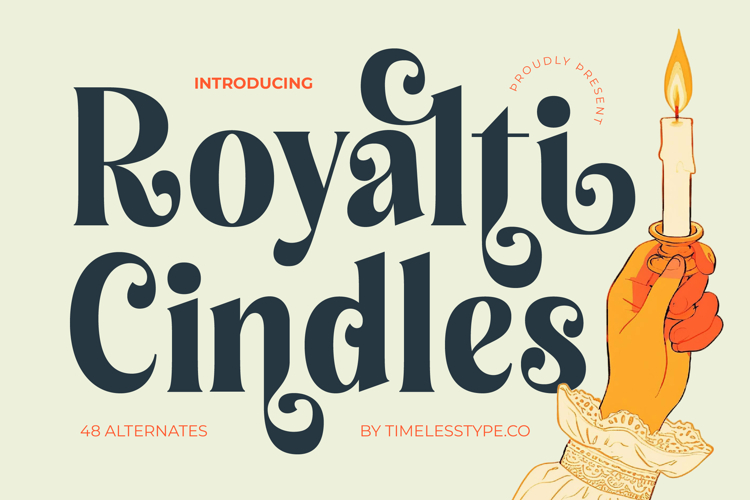
Royalti Cindles - Modern Alternate Font
The Royalti Cindles Typeface is a decorative serif display font that merges classic elegance with playful, ornate detailing. With 48 stylistic alternates, this font gives designers the flexibility to craft typography that is both regal and artistic. Its strong serif structure is enhanced by bold curves and whimsical terminal swirls, giving each letter an expressive personality that feels luxurious, dramatic, and full of character. The design balances traditional serif stability with ornamental flourishes, making it a perfect choice for projects that demand attention and artistic flair.
This typeface is especially effective for editorial design, where it can turn magazine headlines, feature spreads, and book covers into visual statements with a bold yet refined identity. Its distinctive curves and alternates add a storytelling element to text, allowing publications to communicate not only content but also mood and atmosphere.